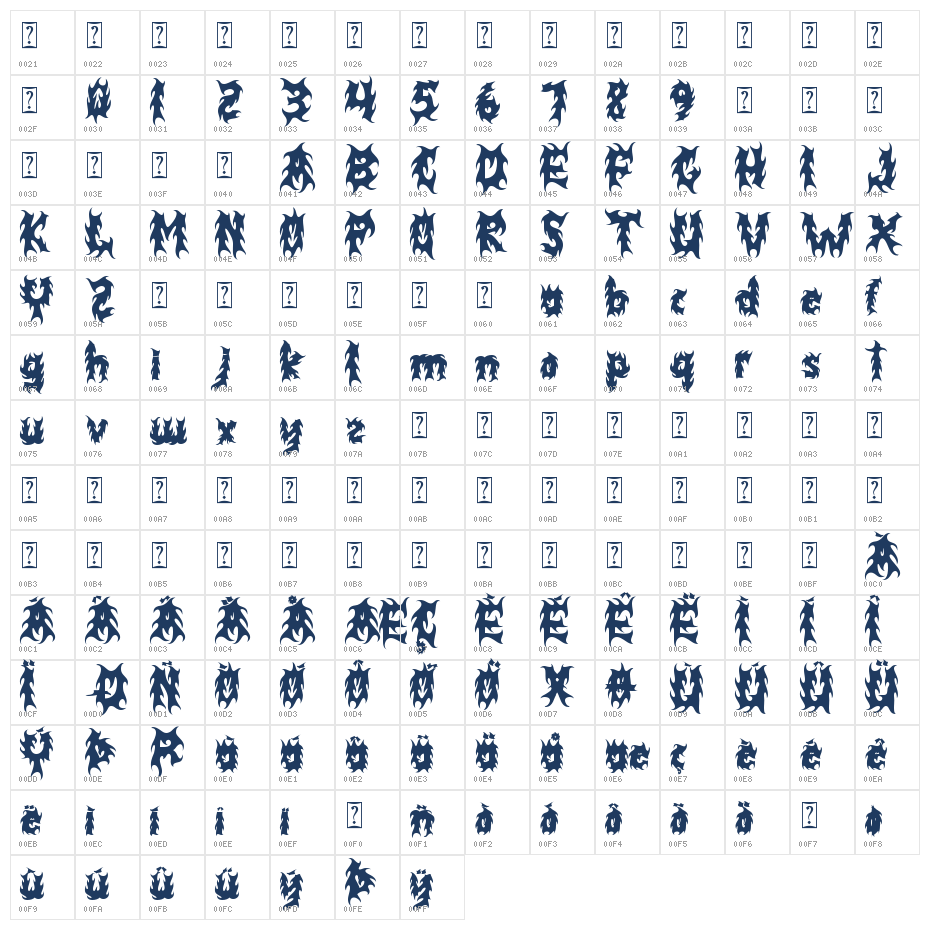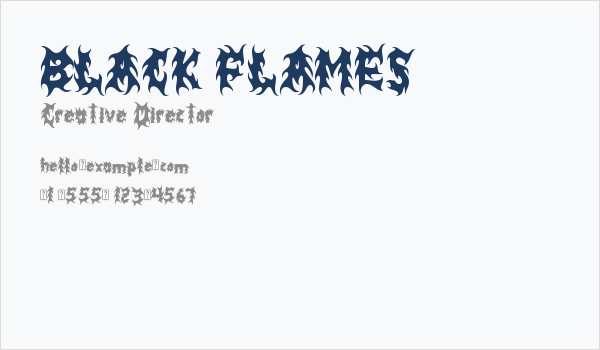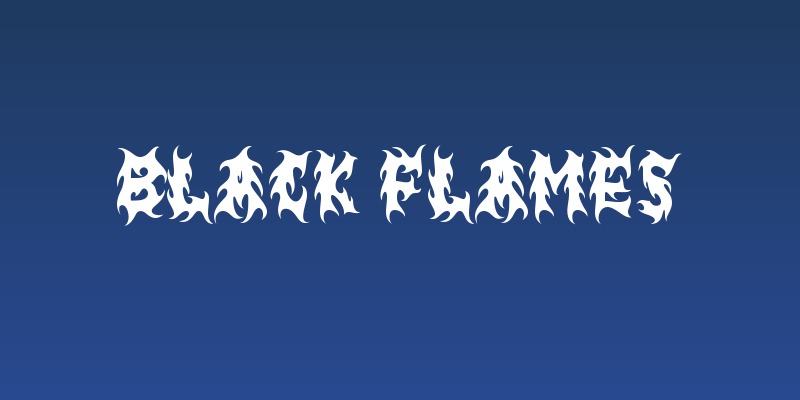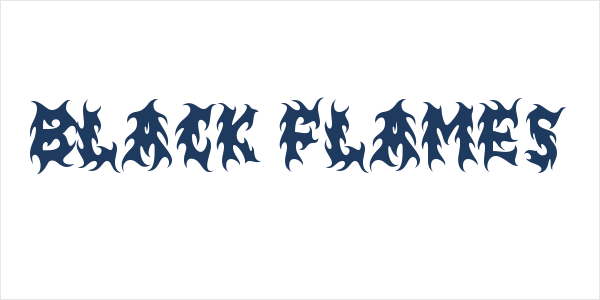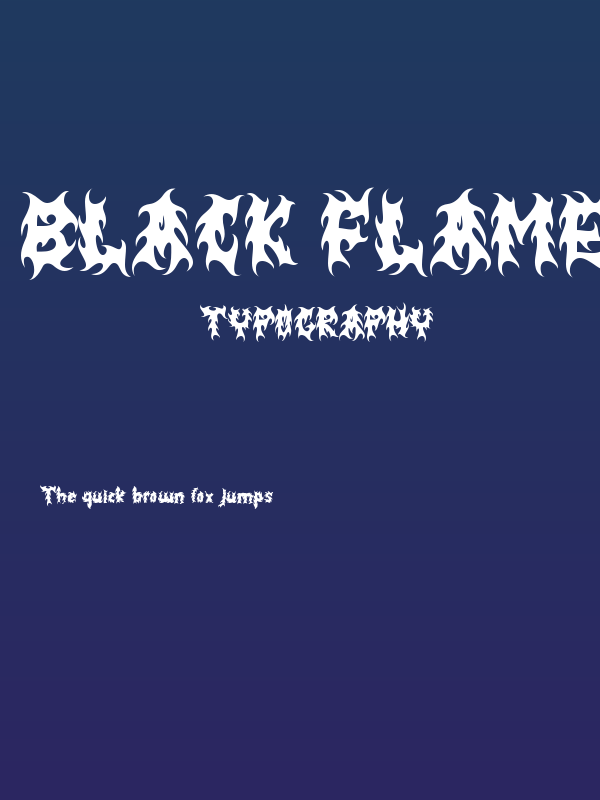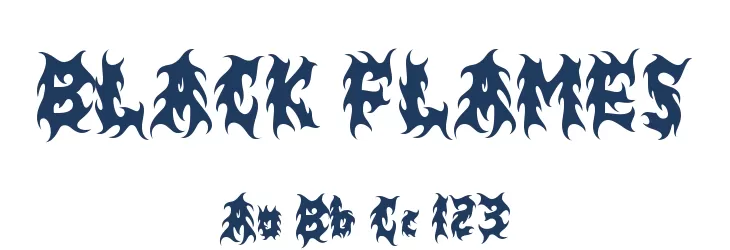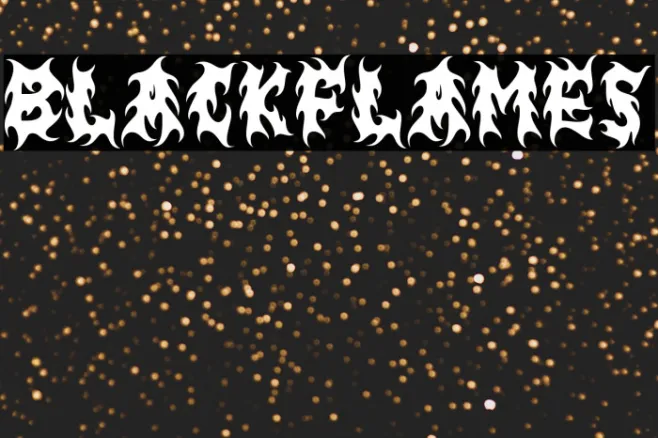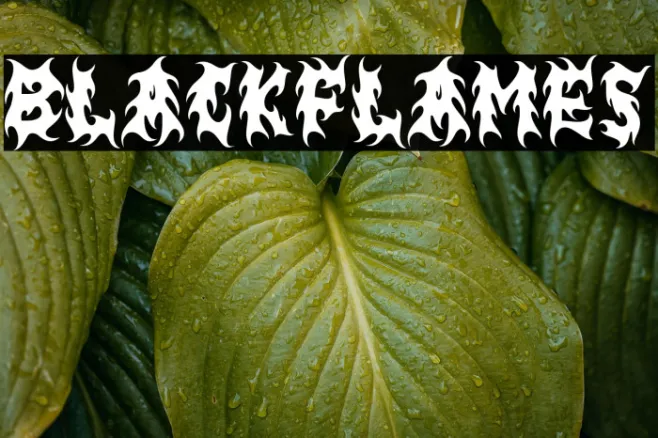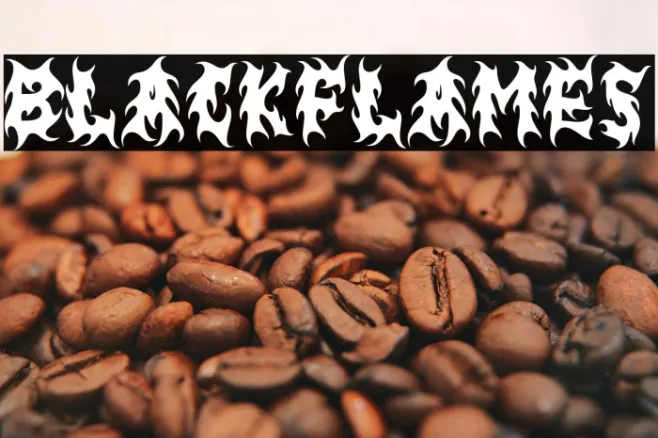
BLACK FLAMES Font
BLACK FLAMES Description
A decorative, gothic-style font with intricate, flame-like details and a bold appearance.
Black Flames
| Overall Style | Gothic, Ornate, Decorative |